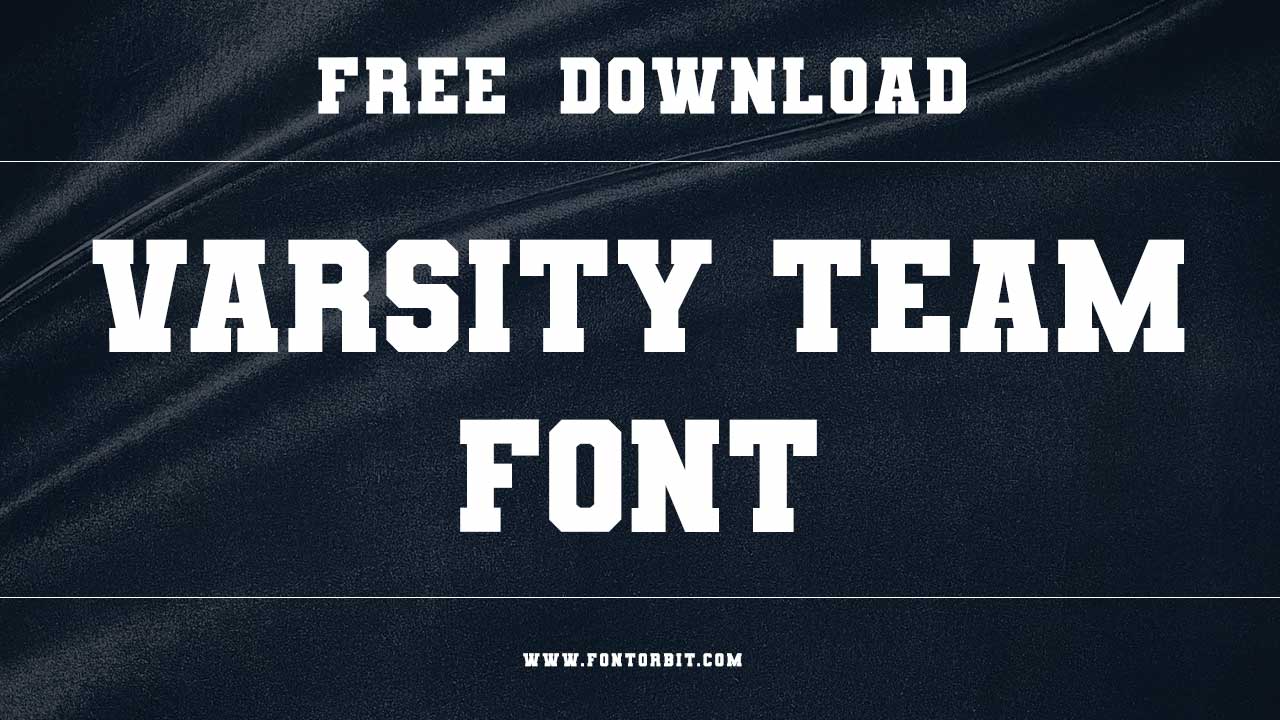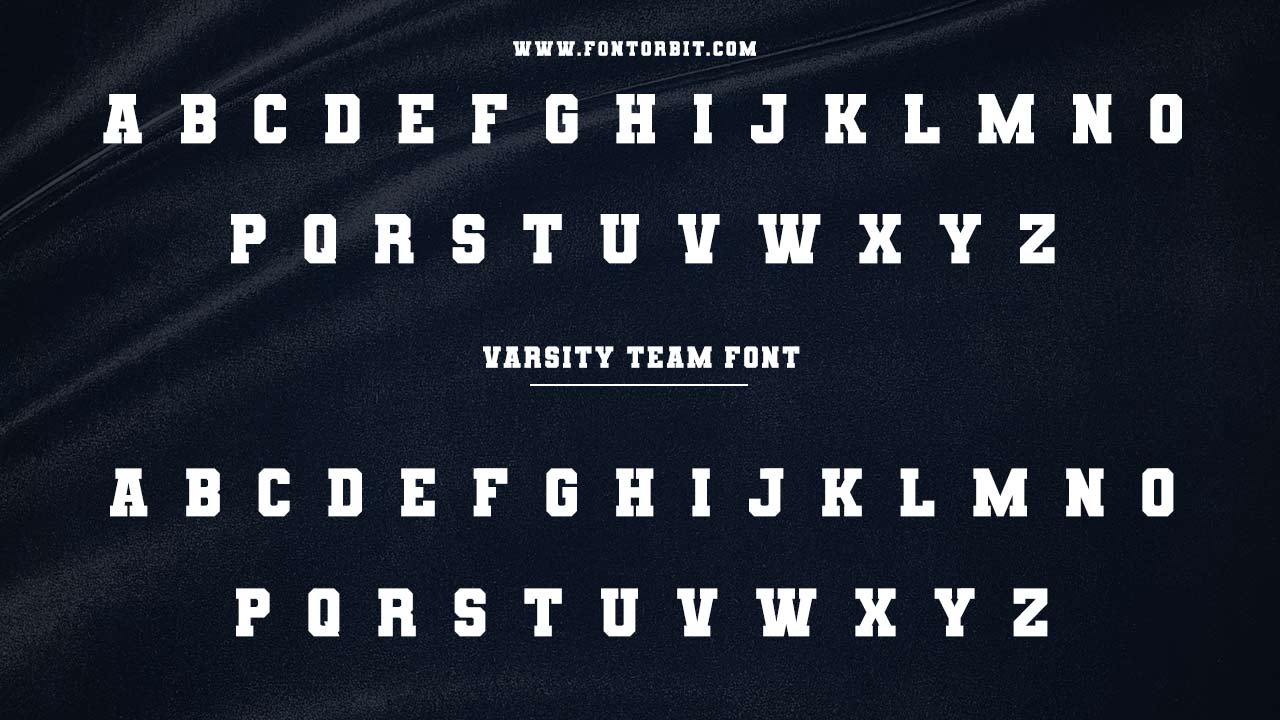
Varsity Team Font, designed by Don Marciano, is a bold and retro typeface that evokes a sense of tradition and athleticism. With its old-school aesthetic, this font is perfect for education-themed projects, sports branding, and modern apparel designs. Available in OTF files format, Varsity Team offers versatility for both personal and commercial use, making it a go-to choice for various design projects.
Type Of The Varsity Team Font (Font Family)
Varsity Team Font falls under the category of decorative slab serif fonts. Characterized by its bold, angular design, it features clean lines ideal for applications ranging from logos to school-themed graphics. This font includes 284 glyphs, offering special characters, numerals, and punctuation marks.
Where Varsity Team Font Is Found In Use
- Apparel Designs: Ideal for letterman jackets, sports jerseys, and team apparel.
- Logo Creation: Used in branding for sports teams, educational institutions, and clubs.
- Education-Themed Applications: Perfect for newsletters, invitations, and school projects like the Varsity Maine Newsletter.
- Decorative Graphics: Adds a bold, retro touch to event posters, promotional materials, and heritage holiday classics.
- Wide Range of Projects: Suitable for football branding, logo fonts, and clean design for both modern and retro aesthetics.
Why Designers Love Varsity Team Font
- Versatility: Suitable for commercial purposes, such as logos, sports designs, and invitations.
- Clean Design: Bold characters ensure readability in both digital and print formats.
- Retro Appeal: Its old-school vibe makes it the perfect font for education-themed and classic designs.
Varsity Team Font is the perfect font for anyone seeking a bold, old-school aesthetic for their designs. Whether you’re working on school projects, logo creation, or apparel designs, this font’s clean design and versatile characters make it an essential tool for designers. Its retro appeal, combined with modern usability, ensures that your projects will stand out.
1.What Makes Varsity Team Font Unique?
Varsity Team Font stands out with its bold, slab serif style and a character set of 284 glyphs. Its old-school aesthetic makes it perfect for retro fonts and decorative designs, offering versatility for design projects like sports branding, letterman jackets, and education-themed applications.
3.How Does Varsity Team Font Compare To Other Decorative Fonts?
Varsity Team Font features a bold, clean design tailored to football, sports, and school branding. Unlike some calligraphy fonts or typewriter fonts, its slab serif style and retro vibe cater specifically to varsity font needs, making it ideal for bold, impactful designs.
4.What Are The Best Uses For Varsity Team Font?
This font is widely used in:
- Sports branding (e.g., varsity team bold for jerseys).
- Heritage holiday classic designs.
- Educational themes such as newsletters or school logos like Varsity Maine Newsletter.
- Bold logo fonts and stylish typography for modern designs.
6.What Styles Are Included In Varsity Team Font?
Varsity Team Font offers multiple styles, including Varsity Team Bold, Outline, Inline, and Serif. These options allow for different fonts in one cohesive family, making it perfect for retro and modern fonts with an old school charm.
7.What Design Themes Work Well With Varsity Team Font?
Varsity Team Font complements education theme applications, letterman jackets, and football team logos. It fits seamlessly into heritage holiday classics, bold heads, and retro-inspired decorative fonts while versatile enough for handwritten fonts or script font pairings.